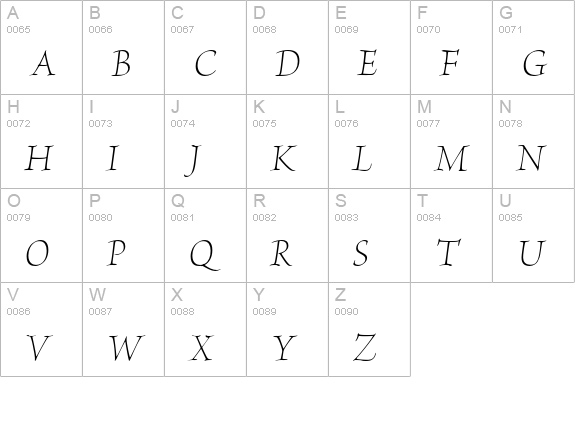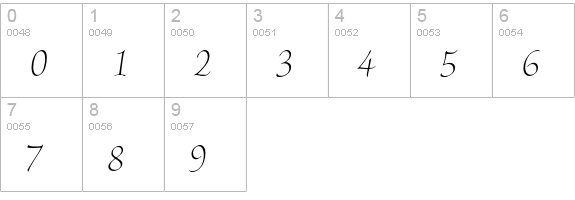
Brioso Pro Light Italic Display is a refined, elegant, italic variant in the Brioso typeface family \xE2\x80\x94 well suited to elegant body text, refined sub-headings, and luxury branding.
Brioso Pro Light Italic Display font exudes elegance and sophistication with its delicate and graceful curves. The soft and flowing italic style adds a touch of flair to any design, making it perfect for high-end branding, editorial layouts, and luxury packaging. The refined and modern look of Brioso Pro Light Italic Display font is sure to captivate your audience and elevate your projects to new heights. Best of all, this exquisite font is available for free download at FontsMarket.com. Whether you're a seasoned designer looking to add a touch of refinement to your work or a newcomer seeking to make a statement, Brioso Pro Light Italic Display font is the perfect choice. Download it today and unleash your creativity with this stunning typeface.